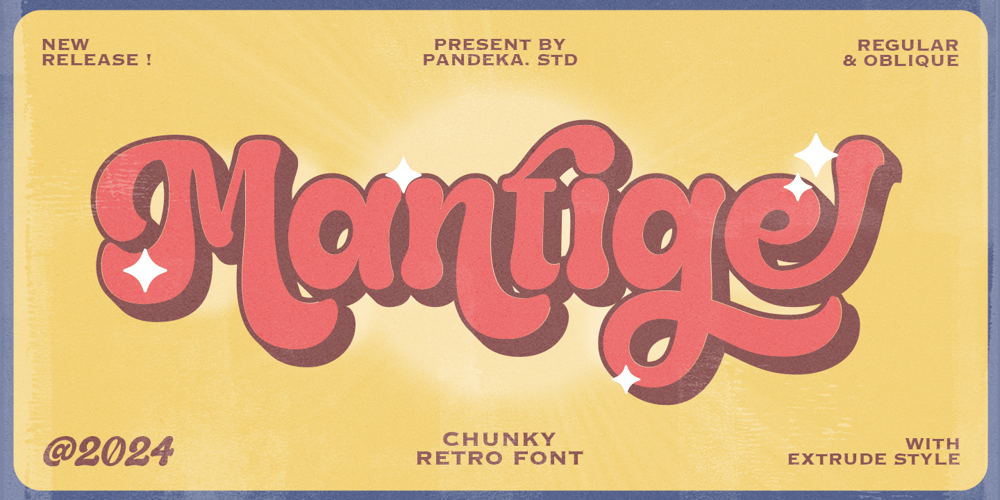
Mantige Font Family was designed by Sagara Nararya and published by Pandeka Studio. Mantige contains 3 styles and family package options. Mantige is an homage to the expressive, soft and rounded old-style serif typefaces from the sixties and seventies. Its gentle and juicy serifs give the typeface the right amount of warmth and nostalgia.While hinting at the classic Cooper-like style, the reinterpretation features several unconventional letterforms which make both the roman and italic styles remarkably dynamic.Featured: Mantige Main Files Regular, Oblique, Extrude Oblique Complete Special Alternates and Ligatures Instructions (Access special characters in all apps, even in Cricut Design) Accessible in Adobe Illustrator, Adobe Photoshop, Microsoft Word even Canva! PUA Encoded Characters. Fully accessible without additional design software Language Support: Danish, English, Estonian, Filipino, Finnish, French, Friulian, Galician, German, Gusii, Indonesian, Irish, Italian, Luxembourgish, Norwegian Bokmål, Norwegian Nynorsk, Nyankole, Oromo, Portuguese, Romansh, Rombo, Spanish, Swedish, Swiss-German, Uzbek (Latin)Feel free to follow, like and share. Thanks so much for checking out my shop!Have a great day!Pandeka Studio